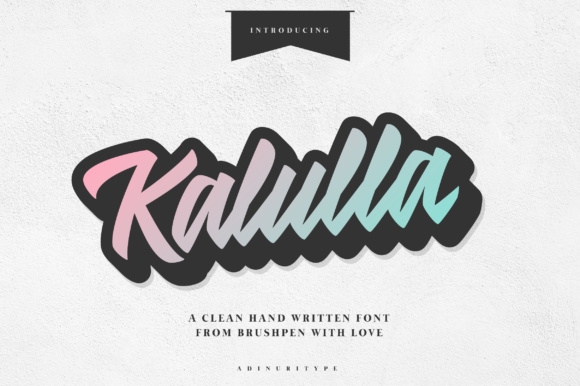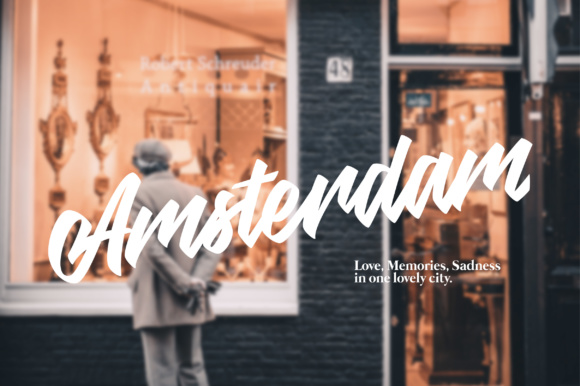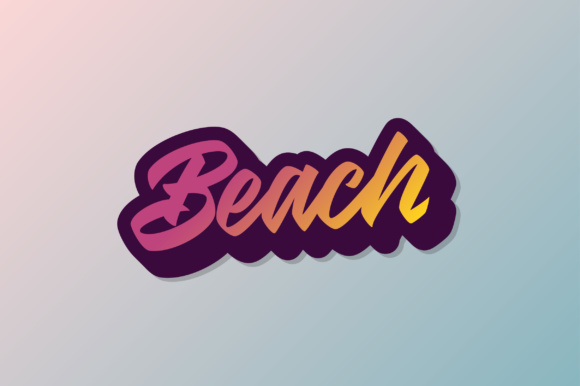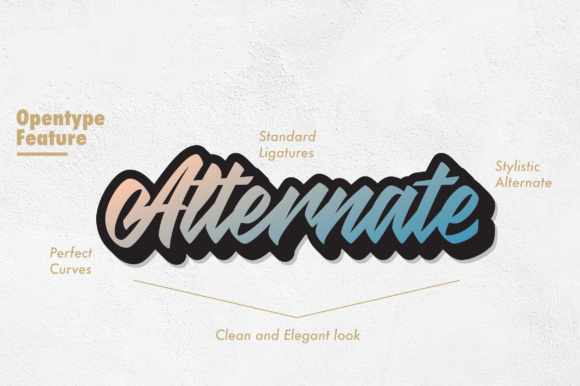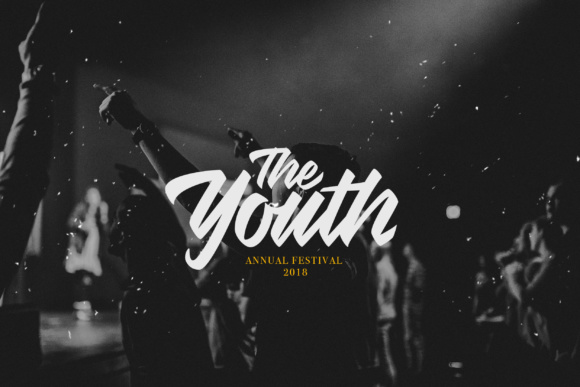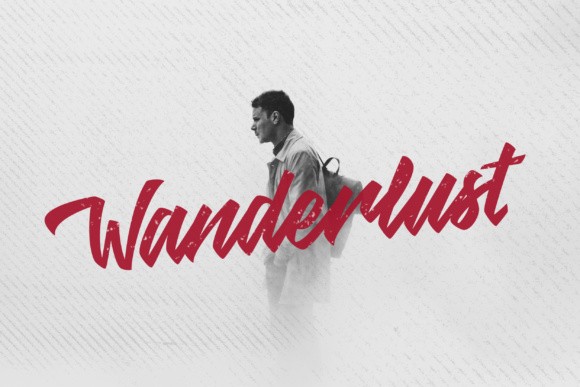
Kalulla Font
About Kalulla Font
Kalulla is a hand written typeface with a clean and elegant style. It’s created with a brush pen and digitalized with precision. It can be used for various purposes such as: letterheads, business card, logo designs, posters, headlines, and much more!